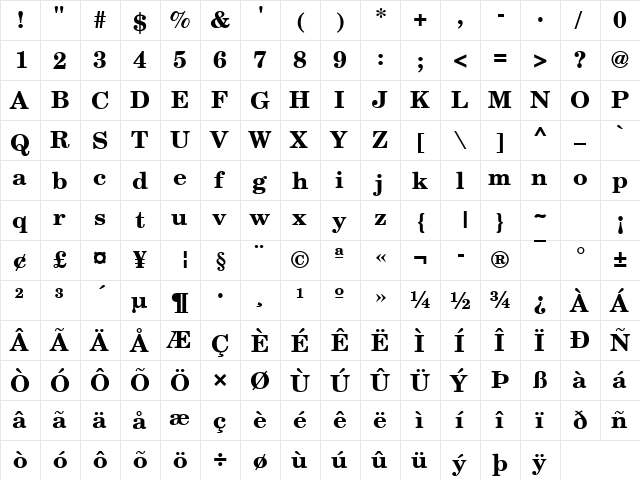
Century Becker Schoolbook Bold
Design Context for Century Becker Schoolbook Typeface
Century Becker Schoolbook is a composed and adaptable typeface that performs quietly and consistently across a wide range of design contexts. Its bold stroke weight gives it real presence on the page.